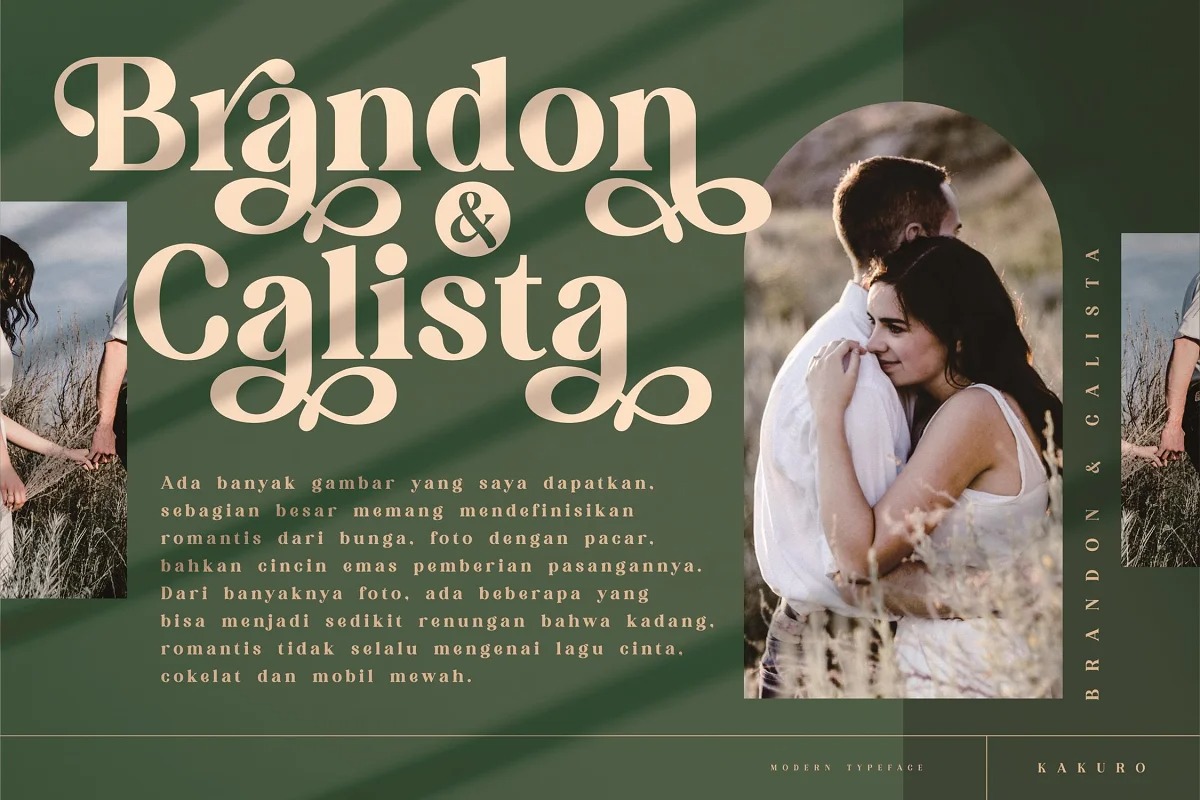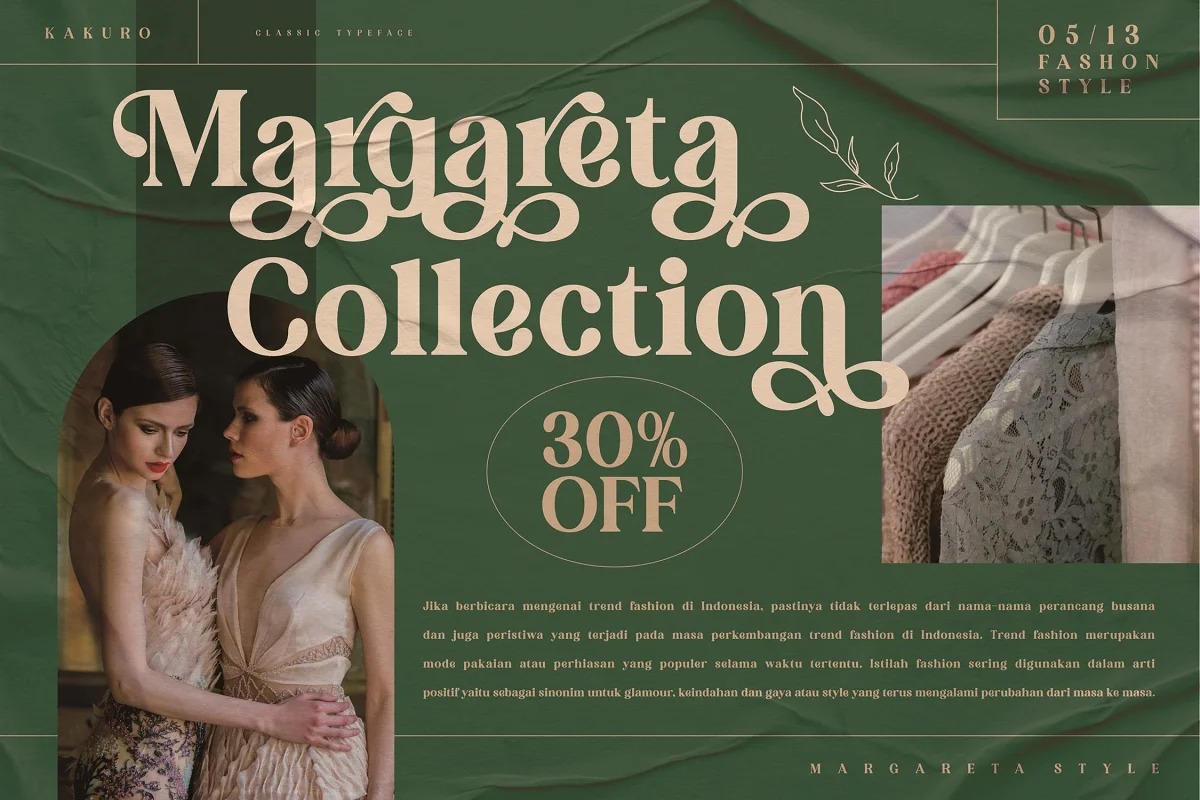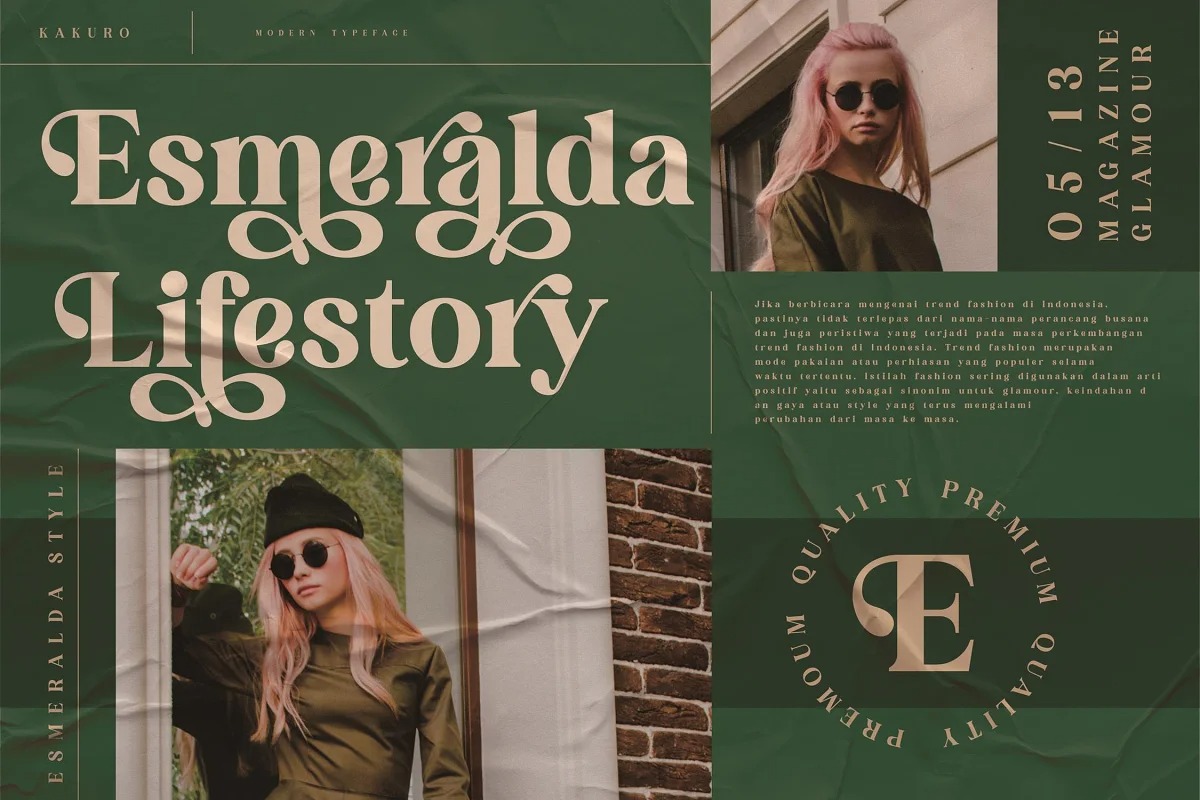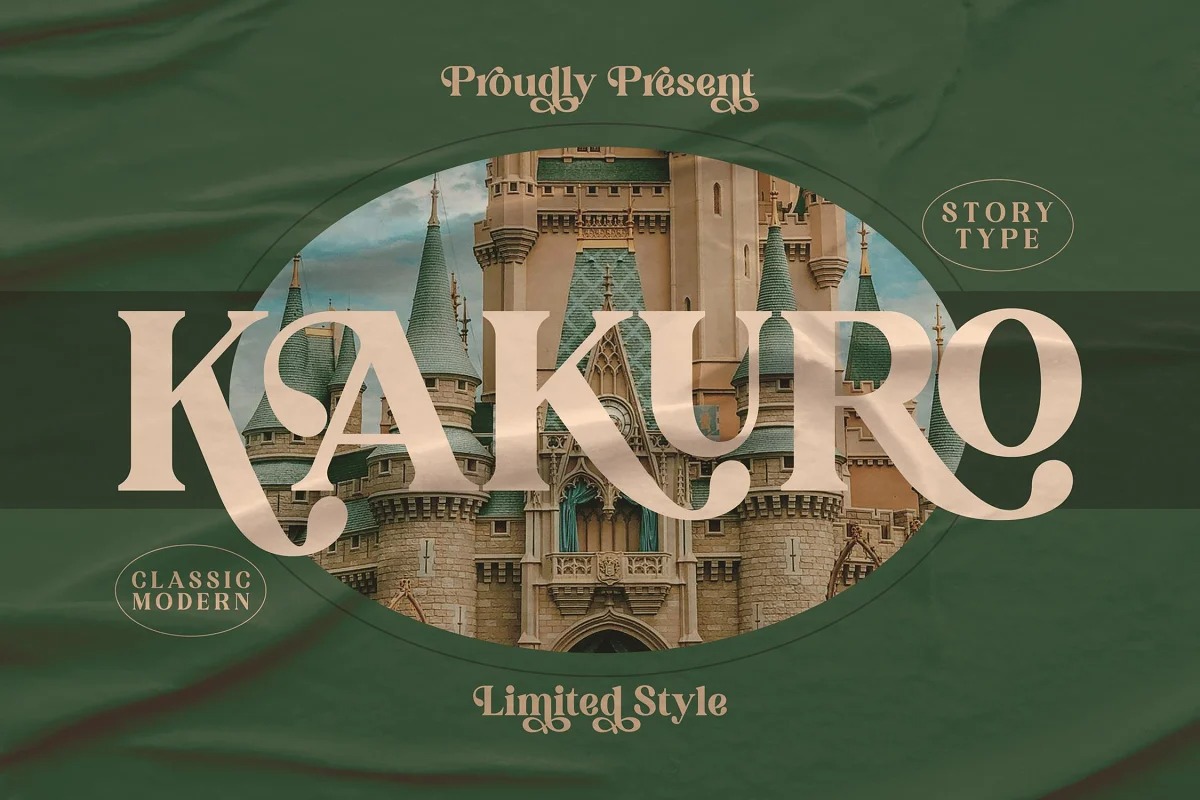
Kakuro Serif Font
A sophisticated serif with high contrast. This typeface has been made carefully to make sure its premium quality and luxury feel. Kakuro is perfect for an elegant & luxury logo, book or movie title design, fashion brand, magazine, clothes, lettering, quotes, and so much more.